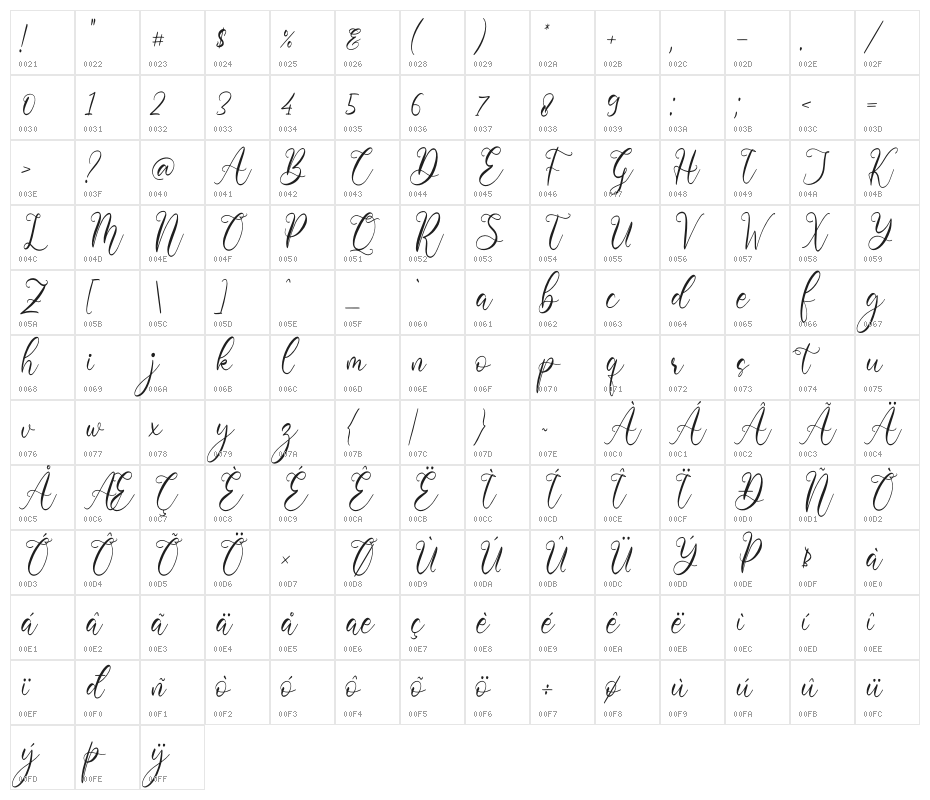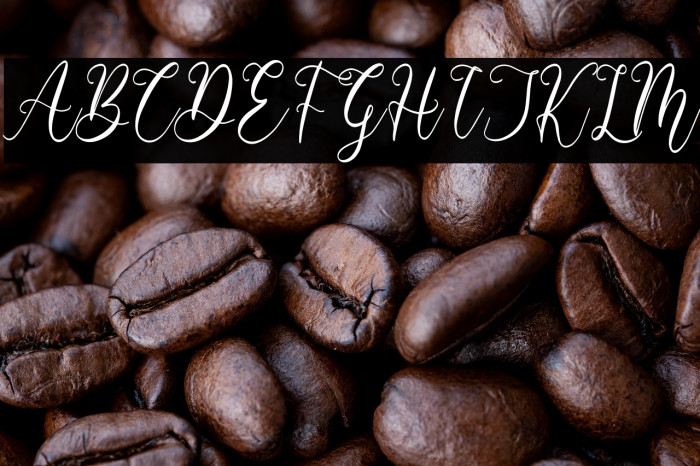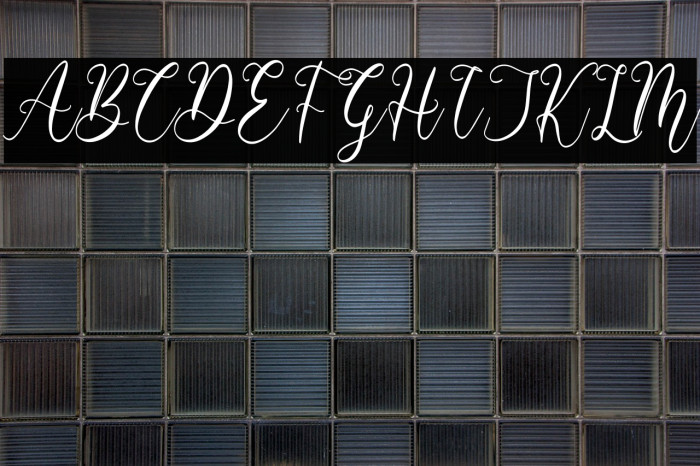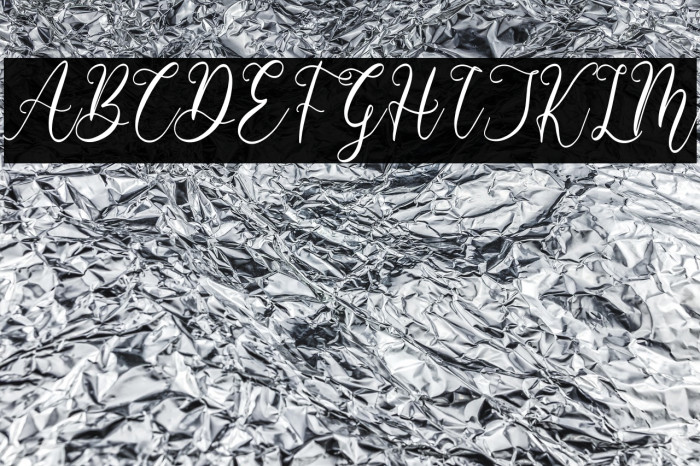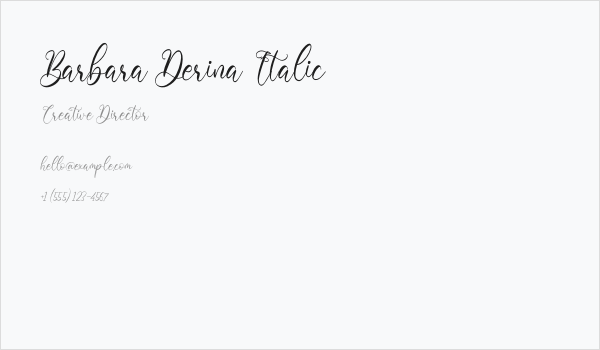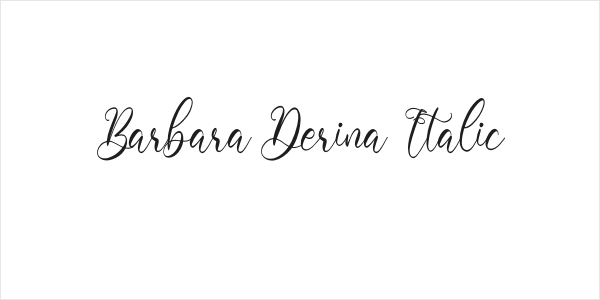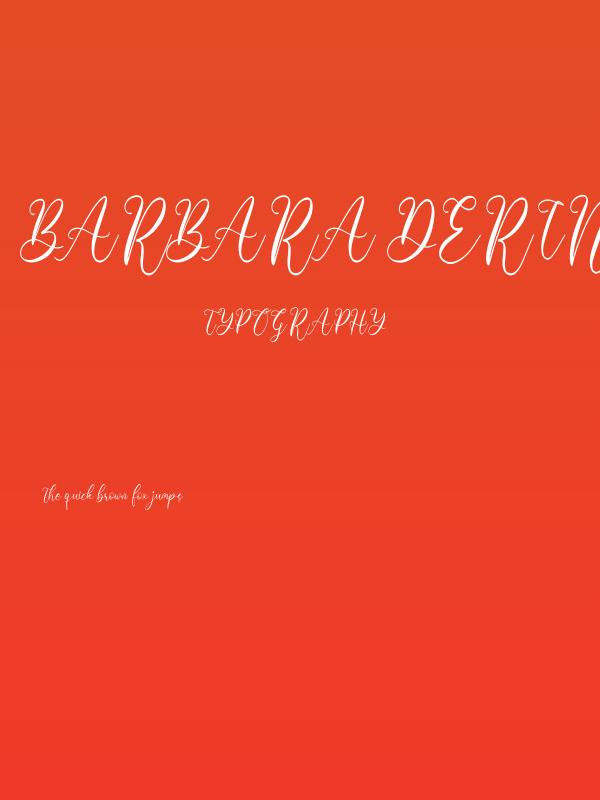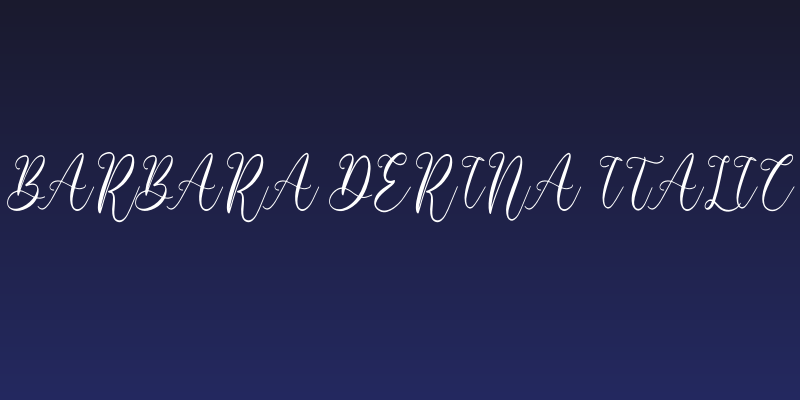
Barbara Derina Italic Font
Barbara Derina Italic Description
This elegant script font features a flowing, cursive style with intricate loops and flourishes. The uppercase letters are tall and graceful, while the lowercase letters maintain a consistent, smooth flow. The numerals are stylishly curved, complementing the overall aesthetic. Special characters are designed with the same attention to detail, adding a touch of sophistication. The font's delicate strokes and high contrast between thick and thin lines give it a refined and artistic appearance, making it suitable for formal and decorative uses.